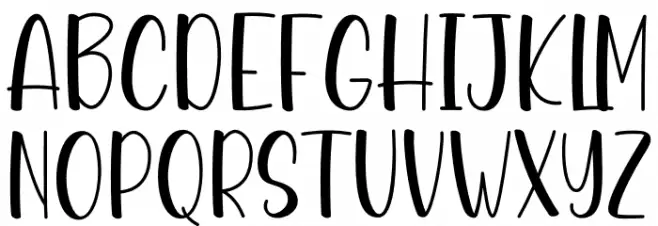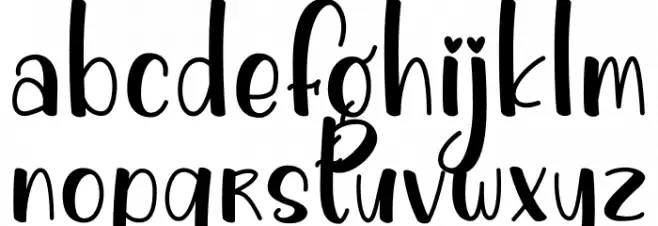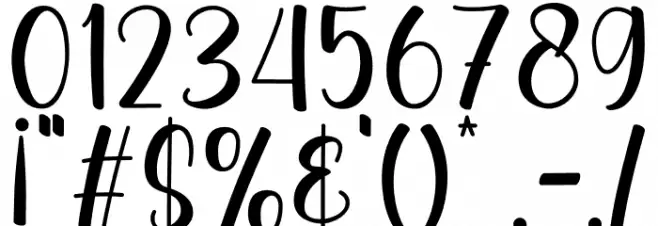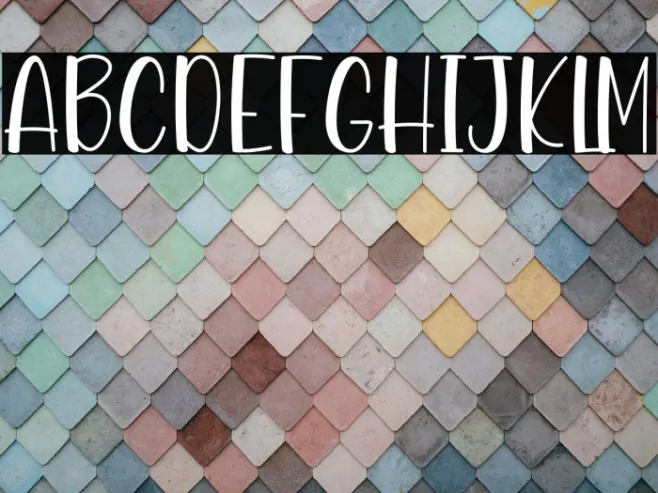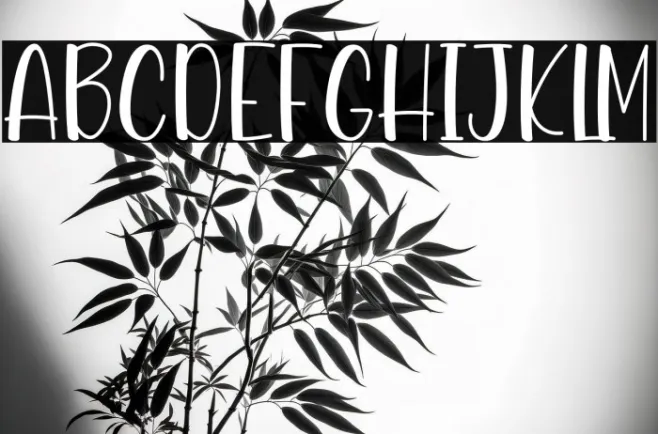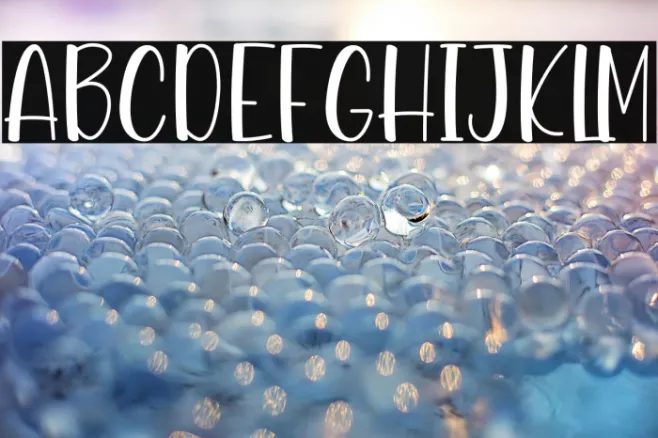
Spooky Dance Font
Spooky Dance Description
A playful and whimsical handwritten font with a casual and slightly irregular style, featuring varying stroke widths and a lively appearance.
Playful handwritten font with a whimsical style.
- Font: Spooky Dance
- Proposed Projects: Greeting cards, children's books, playful branding.
- Category: Handwritten
- Overall Style: Playful, Whimsical
- Use Case: Headlines, Informal text, Creative projects